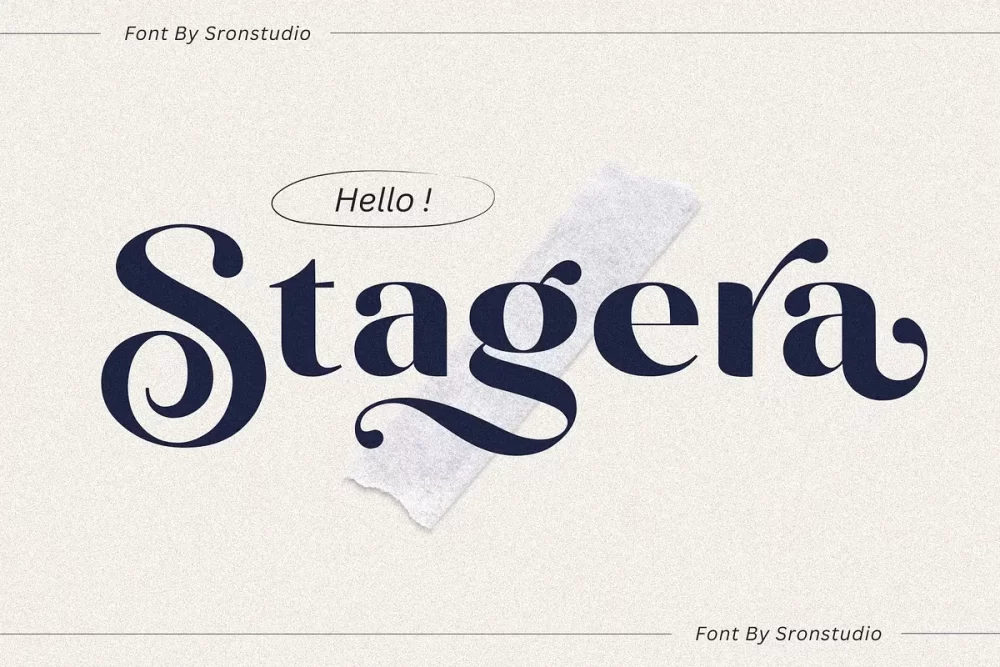
Stagera is a stunning sans serif font that combines beauty with versatility. With its elegant letterforms and captivating alternate characters, it offers a unique and refined typographic experience. Whether you’re designing for branding, editorial work, or any project that requires a touch of elegance, “Stagera” adds a level of sophistication that truly stands out.